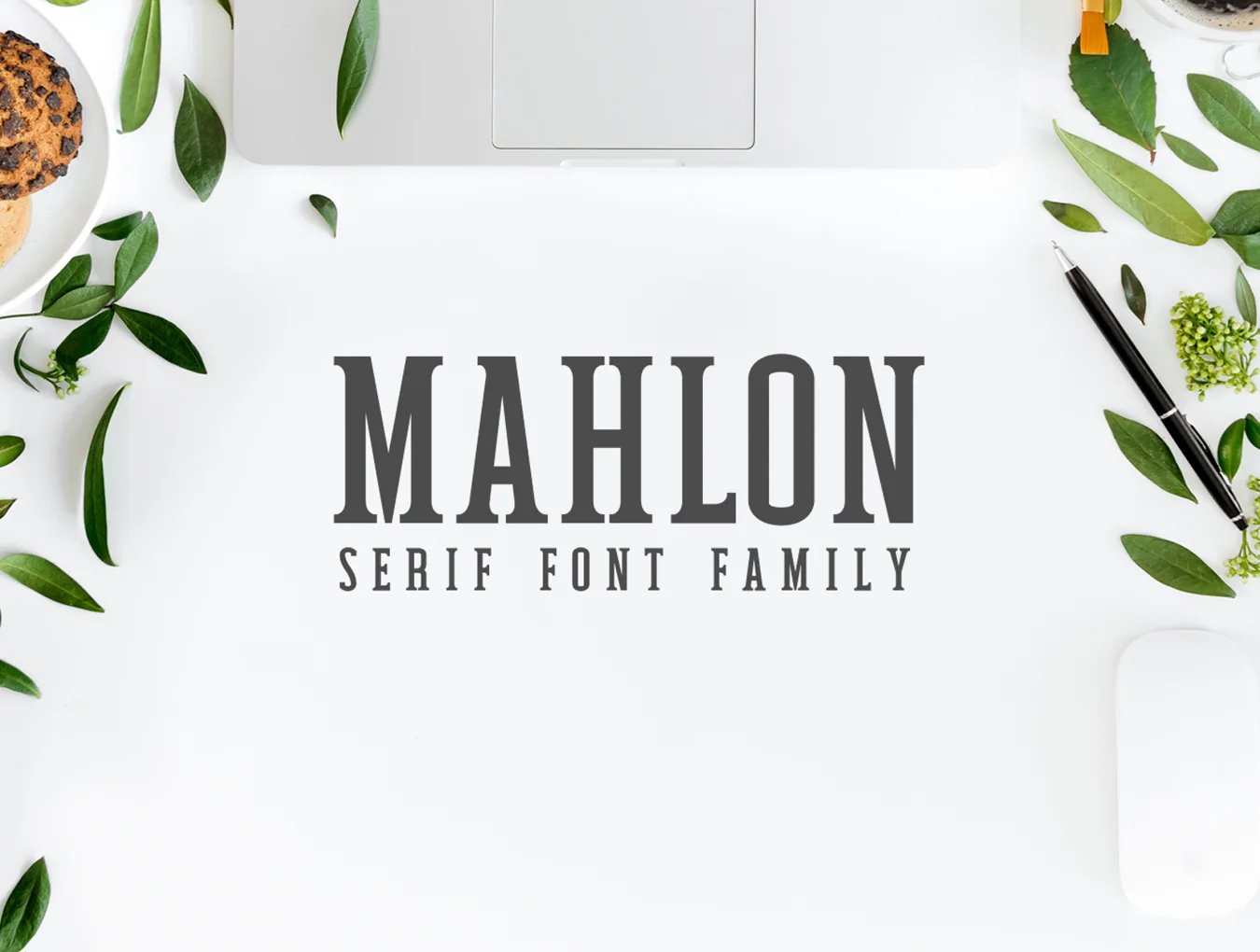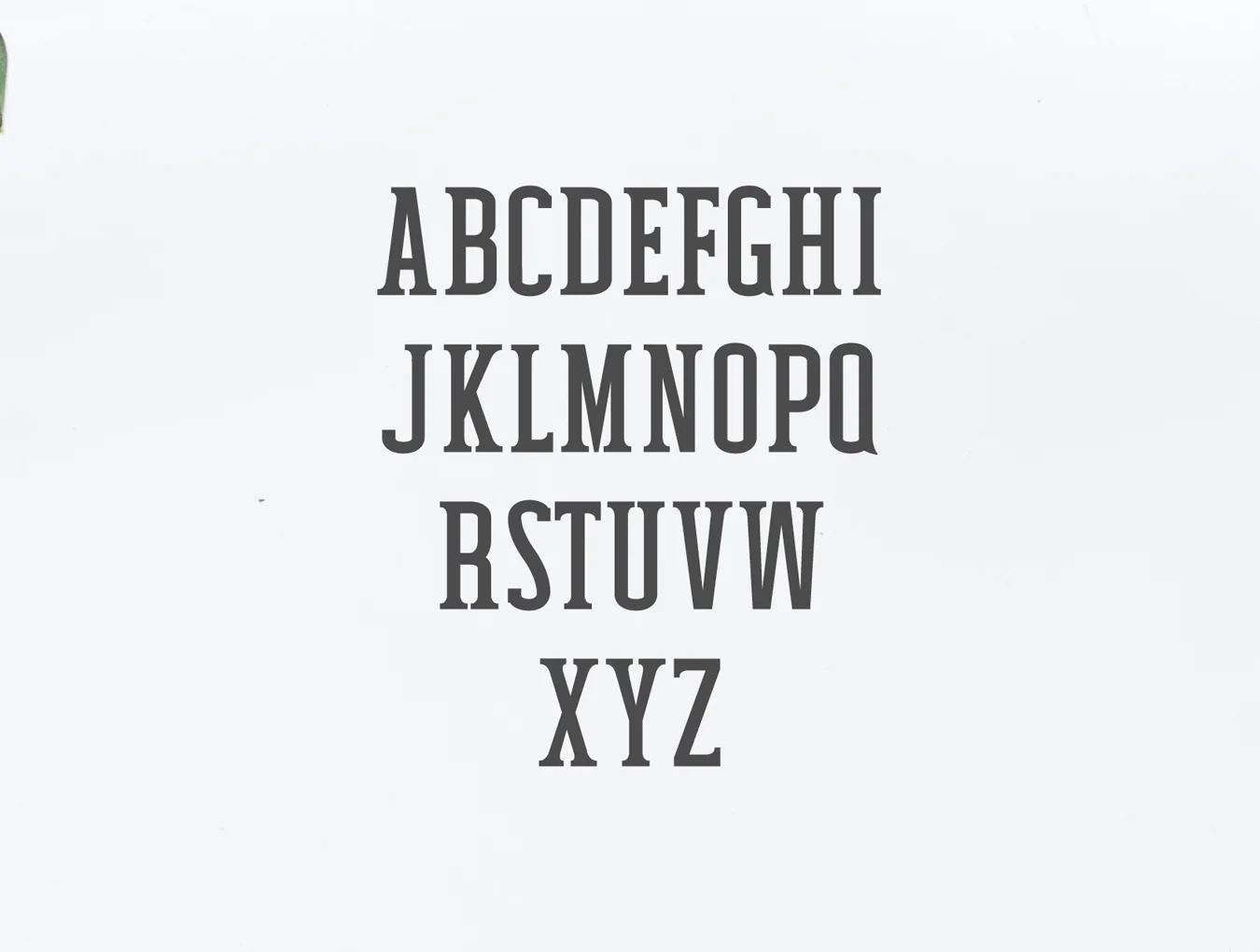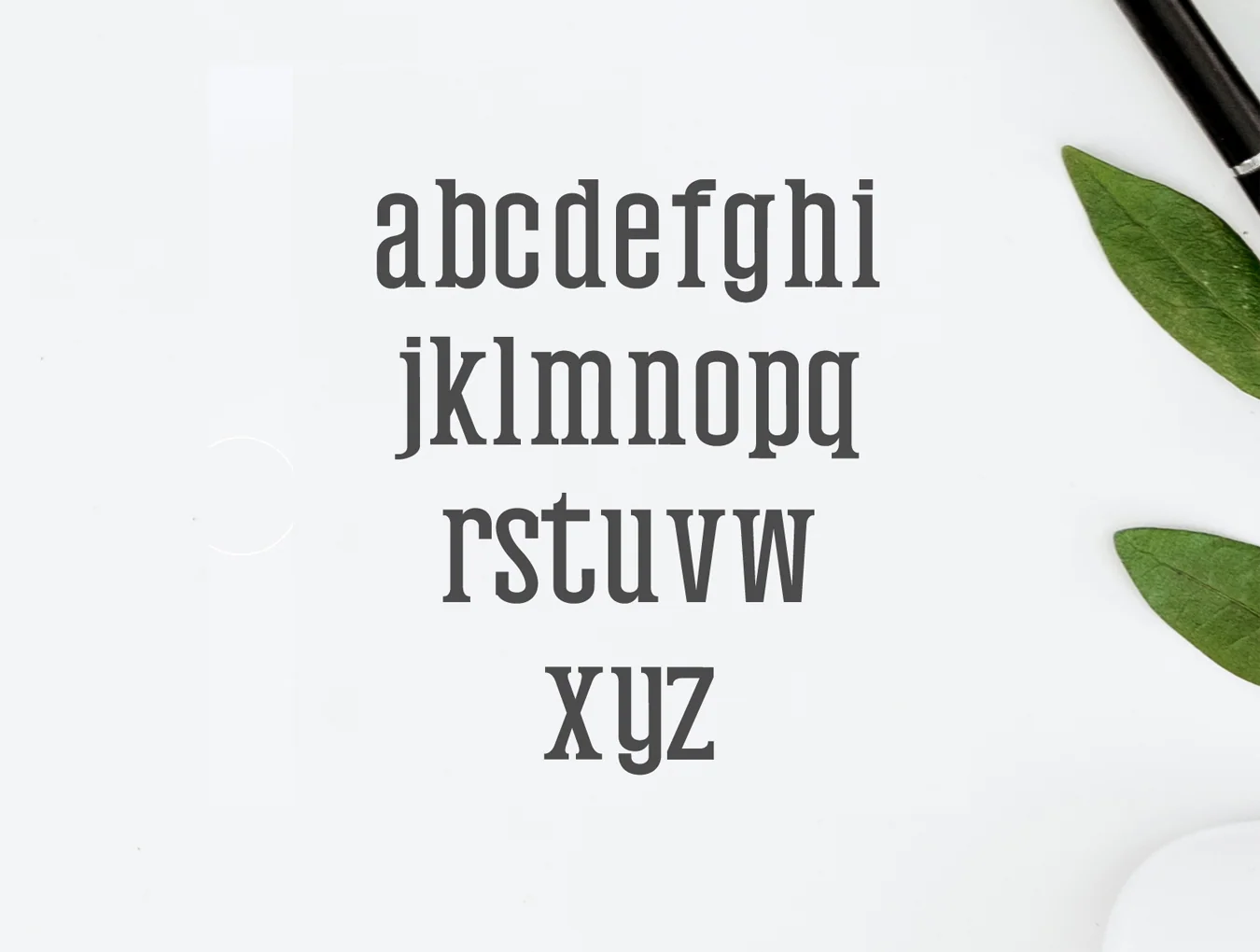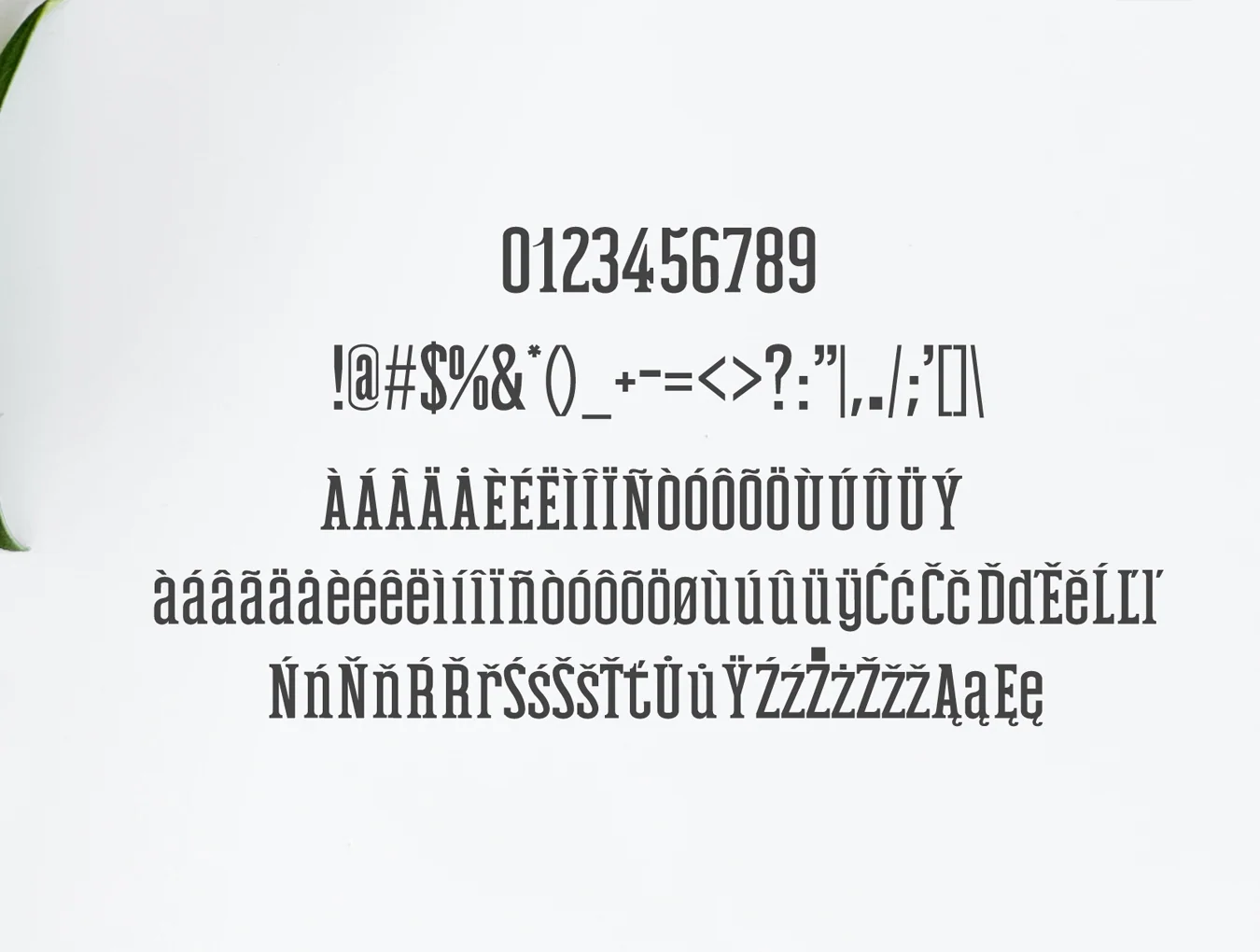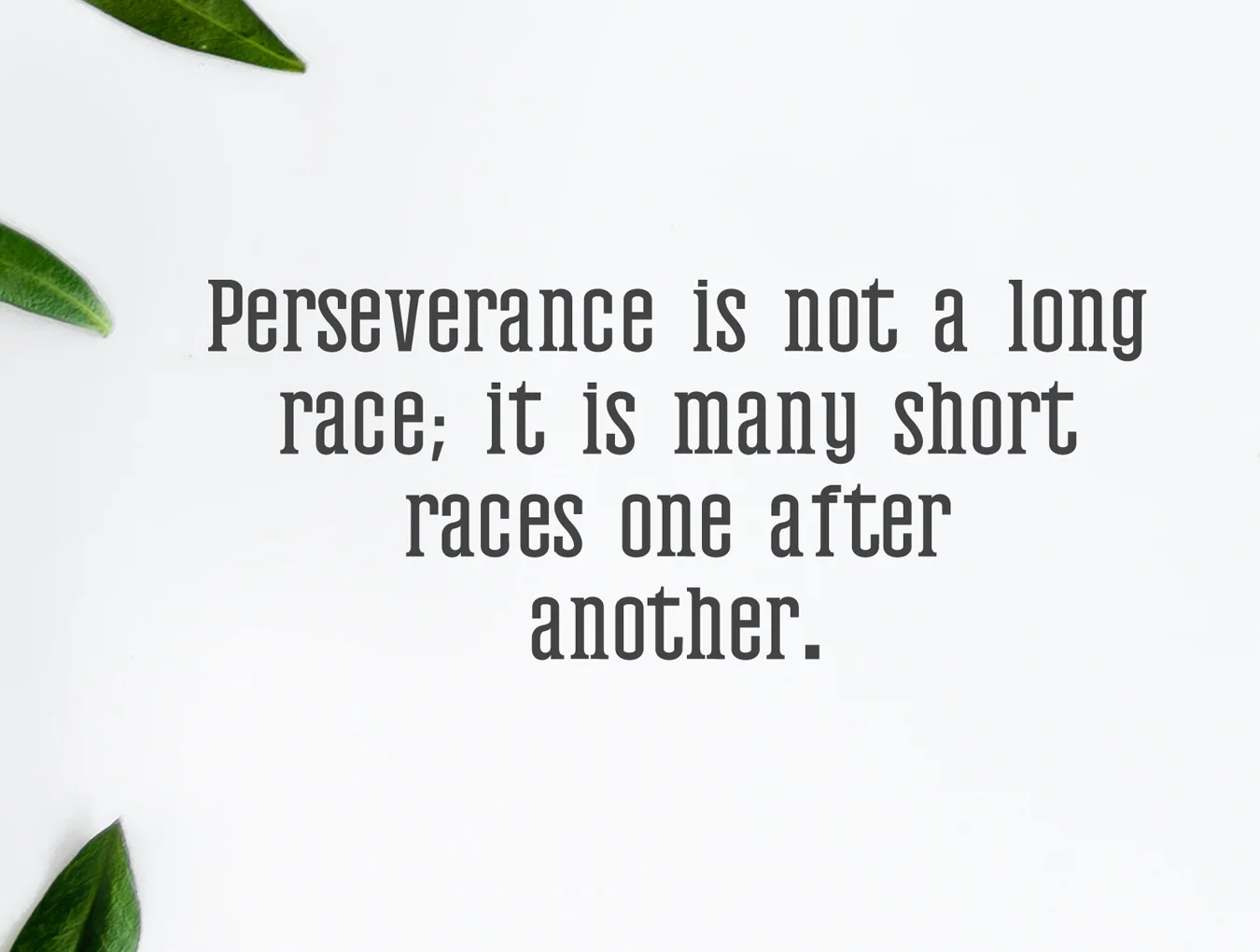
Mahlon Serif Font Family
Mahlon Serif 3 Typeface Family Bundle
Serif font style
259 character glyphs
Regular, Light, and Thin weight options
Mahlon is an elegant minimalist serif typeface with distinctive character, ideal for headlines, wedding invites, greeting cards, T-shirts, branding, logos, merchandise, social media graphics, packaging, and a wide range of creative design projects.